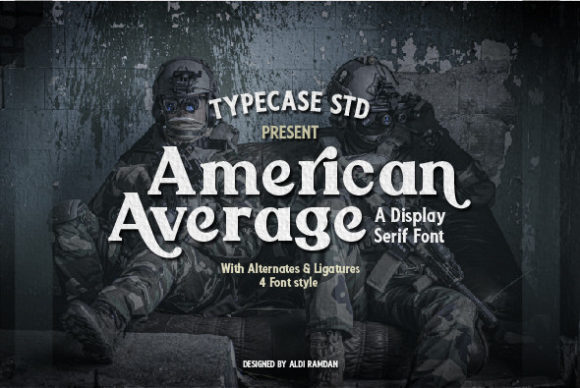
Dive into the realm of captivating typography with American Average Font, a creation of Typecase that will leave you mesmerized. Its sleek and modern serif strokes, reminiscent of a bygone era, blend seamlessly with a contemporary twist. Let your imagination soar as you explore the boundless possibilities this font presents.
Transport yourself to the golden age of design, where elegance and sophistication reigned supreme. American Average Font evokes a sense of nostalgia, yet maintains a distinctly modern edge. Its timeless beauty will elevate your designs to dizzying heights, capturing the attention of all who lay their eyes upon it.
Whether you seek to craft stunning posters that demand attention or desire to infuse your branding with a touch of vintage charm, American Average Font is your steadfast companion. Its versatility knows no bounds, effortlessly adapting to a myriad of design aesthetics. Unleash your creativity and let this font guide you towards design masterpieces.
Experience the unparalleled ease of use that American Average Font offers. As a PUA-encoded font, it grants you effortless access to the entire spectrum of glyphs and swashes. Dive headfirst into a world of boundless customization, where your imagination reigns supreme.
Dare to be different and let American Average Font propel your designs to greatness. Its unique blend of retro and modern elements will set your work apart from the mundane. Embrace the extraordinary and witness the transformative power of typography.